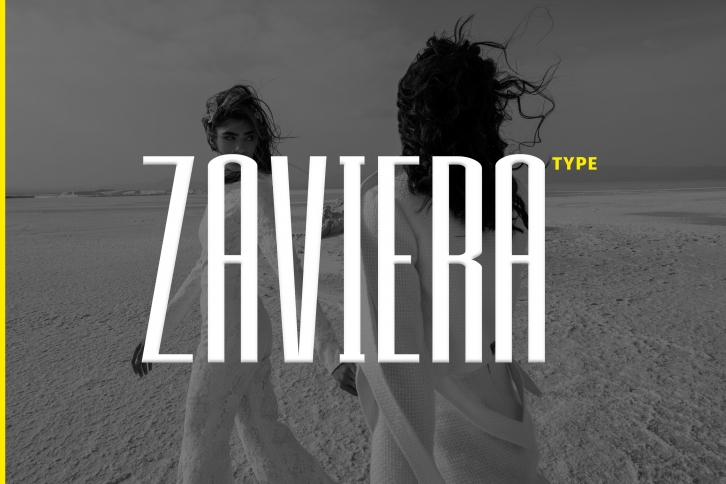
Zaviera is a unique and modern display typeface perfect for headlines, big text, branding, logotypes & display usage. It’s a perfect choice for creating outstanding logos, promotional content, and marketing graphics that can bring uniqueness and freshness at its level best. The typeface will be perfect for creating unique monograms, logos, and identities with these combinations.